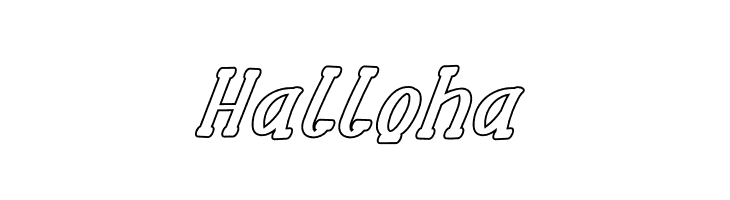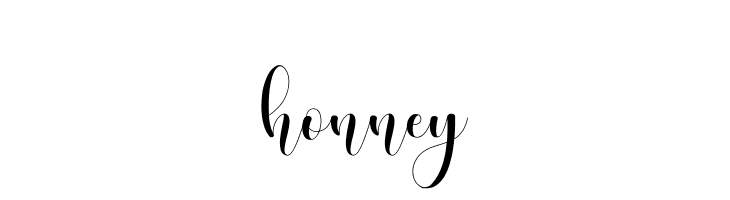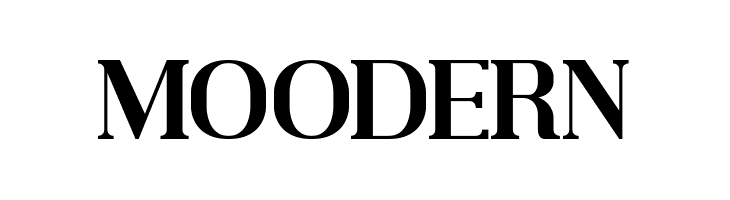
A decorative cursive font with elegant loops and swirls.
A hollow, inverse font with bold outlines and geometric shapes for a modern look.
A bold, geometric font with rounded edges and a modern style.
A modern, rounded, light italic font with a sleek and approachable design.
A decorative and artistic font with intricate, ornate designs.
A bold, modern font with geometric and angular elements.
A cursive, handwritten-style font with elegant, flowing characters.
A lively and elegant script font with fluid strokes and dynamic slant.
A playful, handwritten font with a casual and whimsical style.
A bold, hand-painted style font with expressive, rounded characters.
设计师偏爱 Autige FREE, The Bartender-Hollow-Inverse, smart kid, Josefa Rounded Reduced Light Italic and Garden_of_Eden Singularis,因为其造型干净、适用范围广—— 从品牌识别到落地页、海报都能胜任。